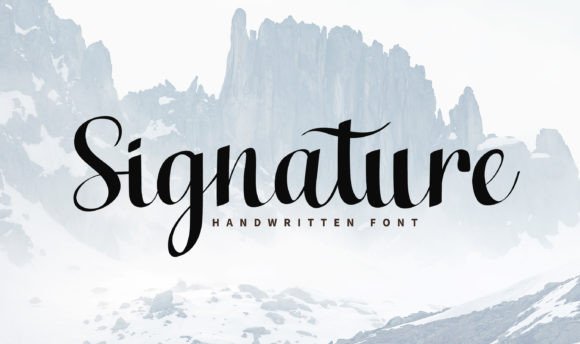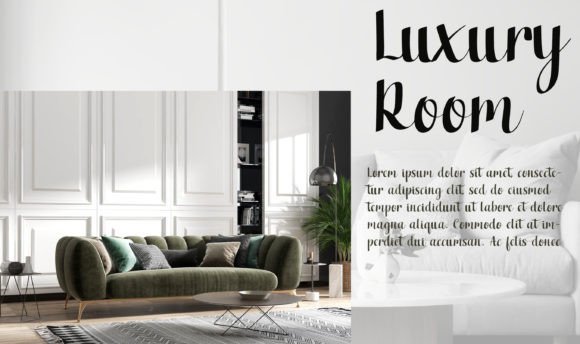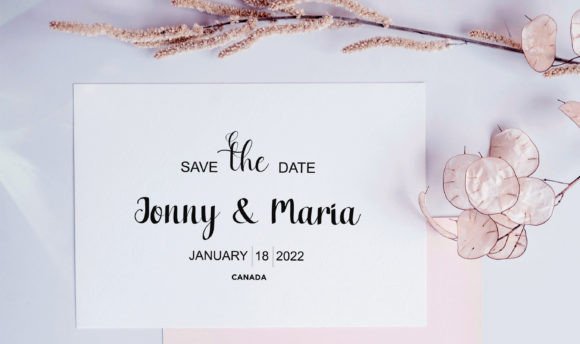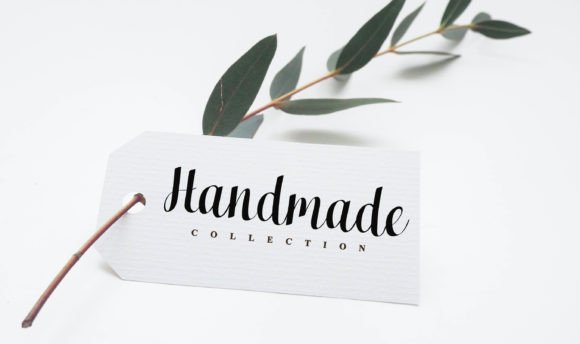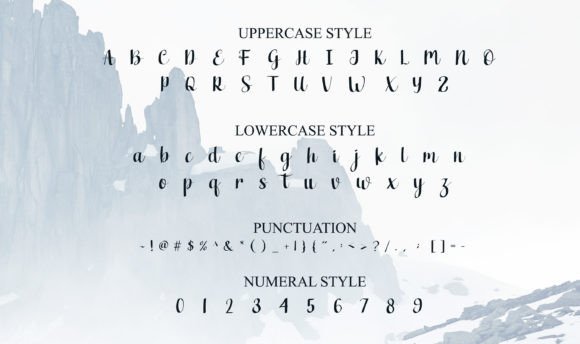
Signature is a handwritten font characterized by its simplicity, attractiveness, elegance, and charm. With a contemporary feel, it adds an impression of sophistication to every touch. This versatile font is suitable for a variety of products, adapting to different needs and contexts.
The simplicity and charm of Signature make it a perfect fit for various formal applications. It can be effectively used in invitations, labels, packaging, menus, logos, fashion, makeup, stationery, letterpress, romantic novels, magazines, books, greeting and wedding cards, brand identity, the clothing industry, posters, games, Instagram posts, websites, cartoons, YouTube content, and a myriad of other project designs.
In formal work, such as invitations and labels, Signature brings an element of elegance, making your content visually appealing and memorable. Its handwritten style adds a personal touch, creating a connection with the audience.
For packaging and labels, Signature contributes to a sophisticated and branded look. The font’s charm enhances the overall presentation of the product, making it more attractive on the shelves.
In the realm of literature, including romantic novels, magazines, and books, Signature adds a unique and personalized touch to the text. Its contemporary feel makes it suitable for a wide range of genres, infusing a sense of style into the written content.
For brand identity, Signature becomes a powerful tool. Whether used in logos, stationery, or clothing industry branding, the font conveys a distinctive and memorable image, contributing to the overall identity of the brand.
In digital spaces like Instagram and websites, Signature stands out with its charm. It brings a handwritten and personal touch to social media posts, websites, and other online content, creating an engaging and relatable experience for the audience.
The versatility of Signature makes it an excellent choice for a wide array of project designs, showcasing its adaptability and timeless appeal. In summary, Signature is not just a font; it’s a handwritten design element that enhances the elegance and charm of your text across various projects, adding a contemporary and personal feel to your creations.